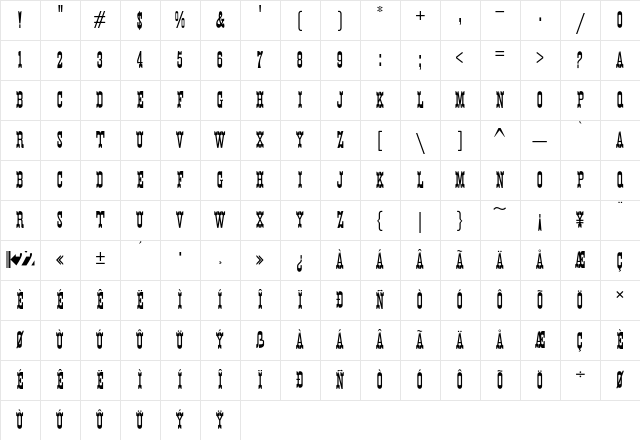
K22 Eureka NoFrills Regular Free Font
K22 Eureka NoFrills Regular
Foundry: Toto
Designer: Toto
Design Context for K22 Eureka NoFrills
K22 Eureka NoFrills is a composed and adaptable typeface that performs quietly and consistently across a wide range of design contexts.